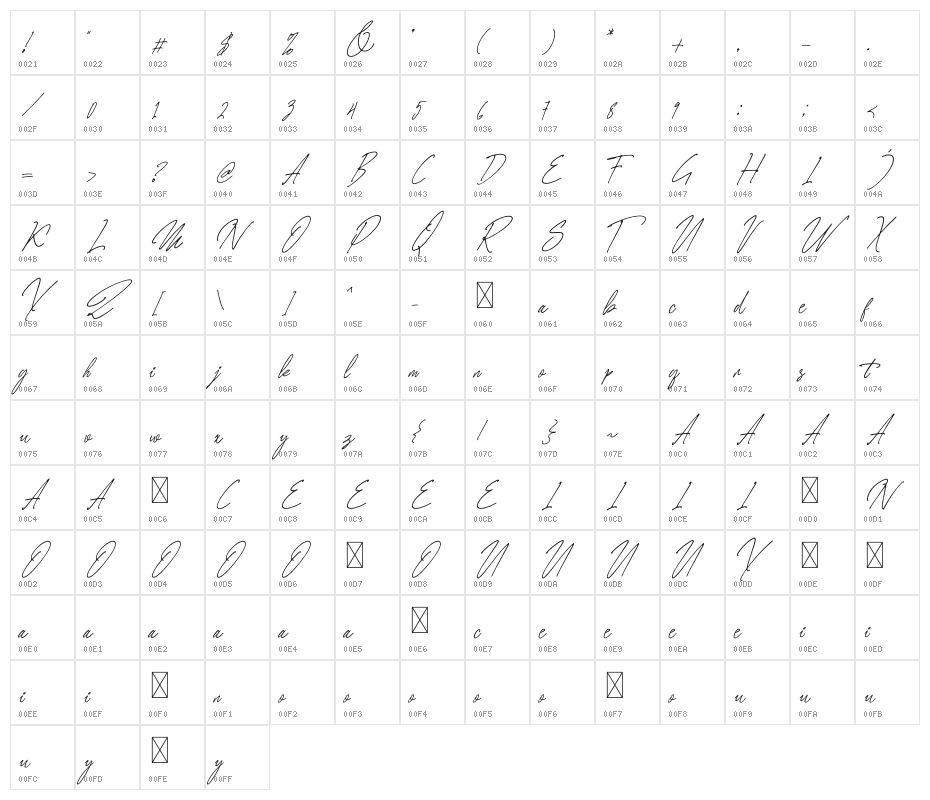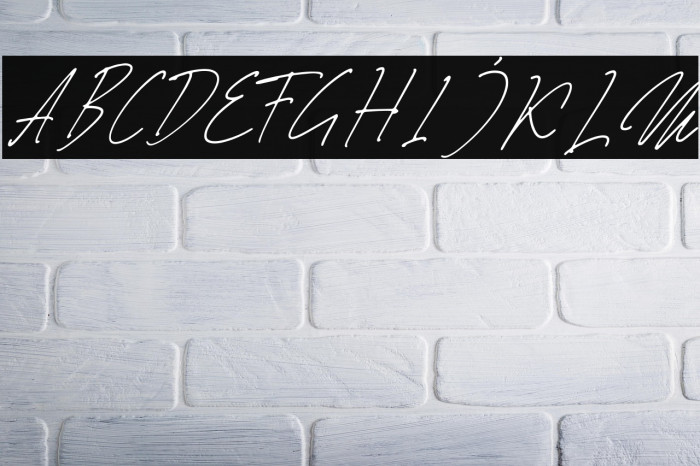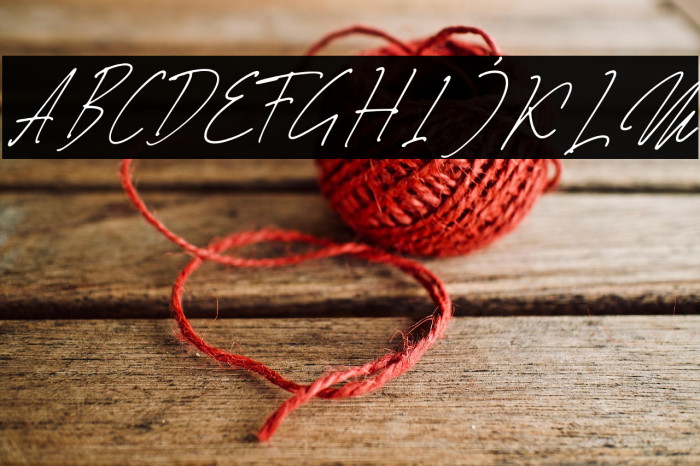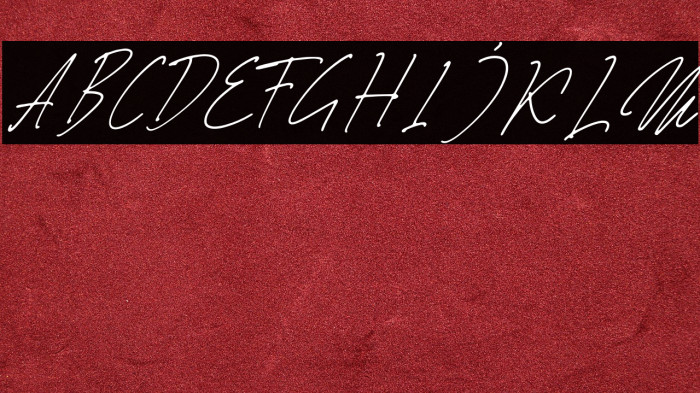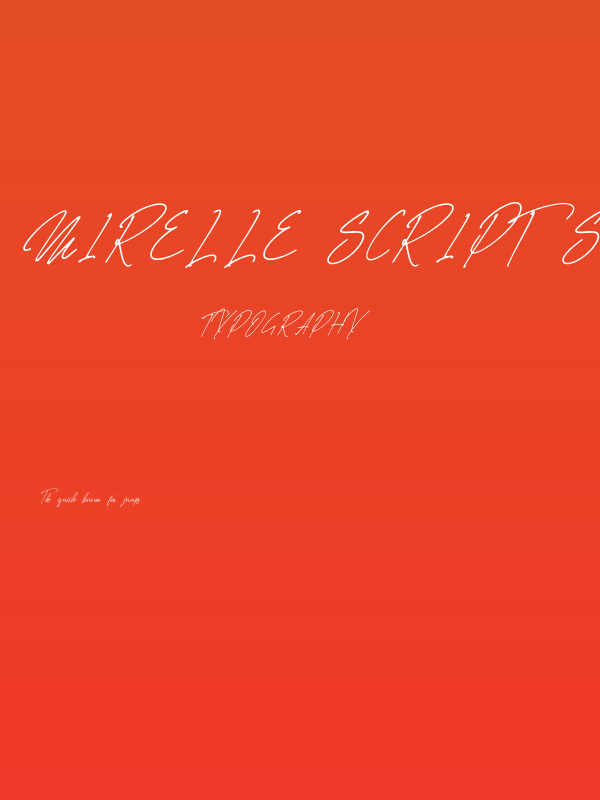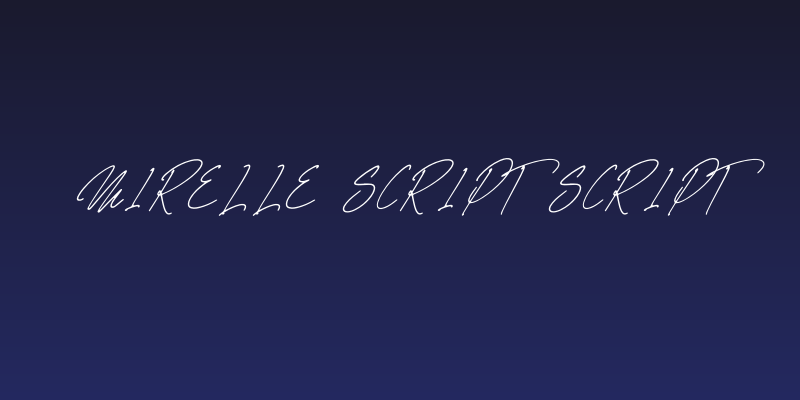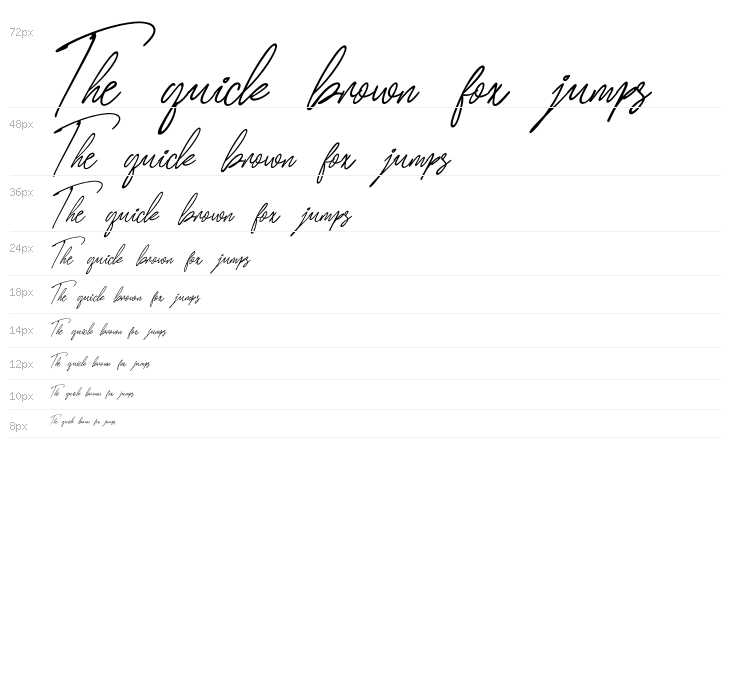
Mirelle Script Script Font
Mirelle Script Script Description
This elegant script font exudes a sense of sophistication and fluidity, characterized by its graceful, flowing lines and delicate curves. The letters are interconnected, creating a seamless and continuous appearance that mimics the art of traditional calligraphy. Each character is meticulously crafted, with varying stroke widths that add a dynamic quality to the text. The uppercase letters are slightly more ornate, while the lowercase letters maintain a consistent rhythm, enhancing readability. The numerals and special characters are designed to complement the overall aesthetic, ensuring a cohesive look across all text elements.
| Overall Style | Elegant |
| Use Case | Logos, Invitations, Artistic projects |
| Proposed Projects | Ideal for wedding invitations, elegant branding, personal stationery, and artistic projects requiring a touch of sophistication. |